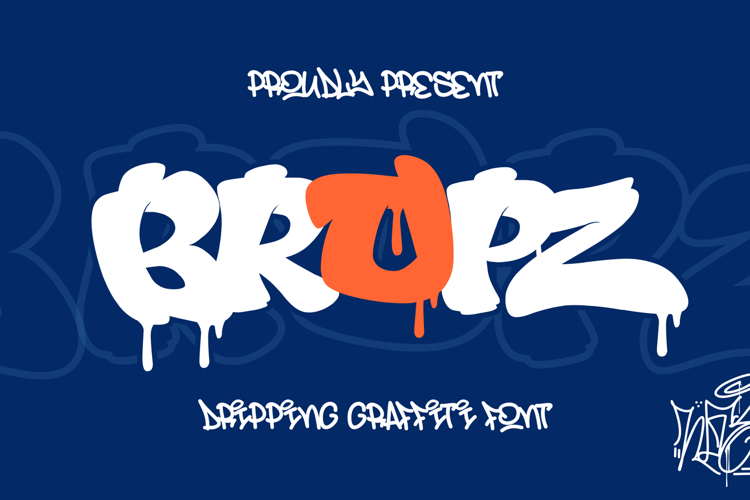
Toxic Riot Dripping Graffiti Font | Streetwear Display
Bropz is a bold and rebellious all-caps graffiti font that brings raw street energy straight to your designs. With three striking styles—Standard (Solid), Outline, and Drip—Bropz gives you the creative tools to make bold statements, loud tags, and urban-inspired graphics that can’t be ignored.
✦ Why You’ll Love It: Whether you're designing edgy artwork, music promos, or graffiti-inspired branding, Bropz delivers that authentic spray-can vibe with just the right amount of chaos and attitude. Combine the layers to create custom effects and unleash your inner street artist.
Bropz isn’t just a font—it’s your visual shout-out from the concrete jungle.